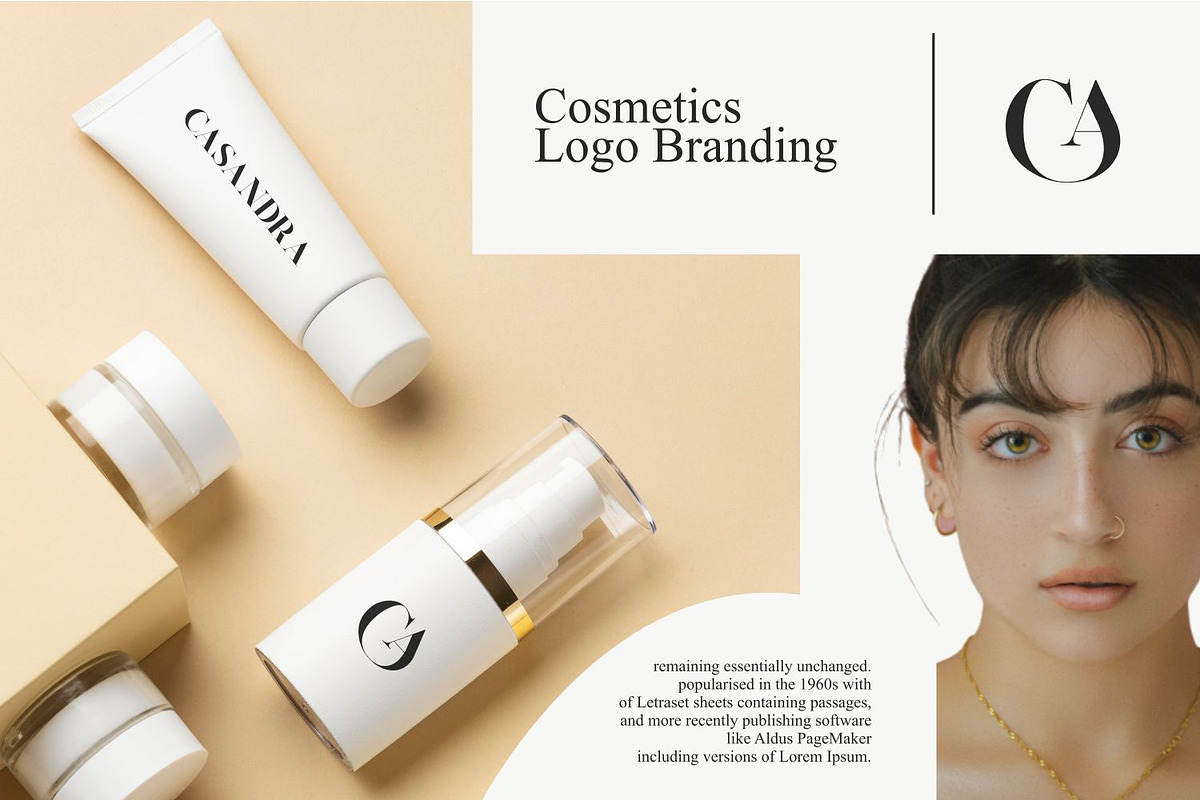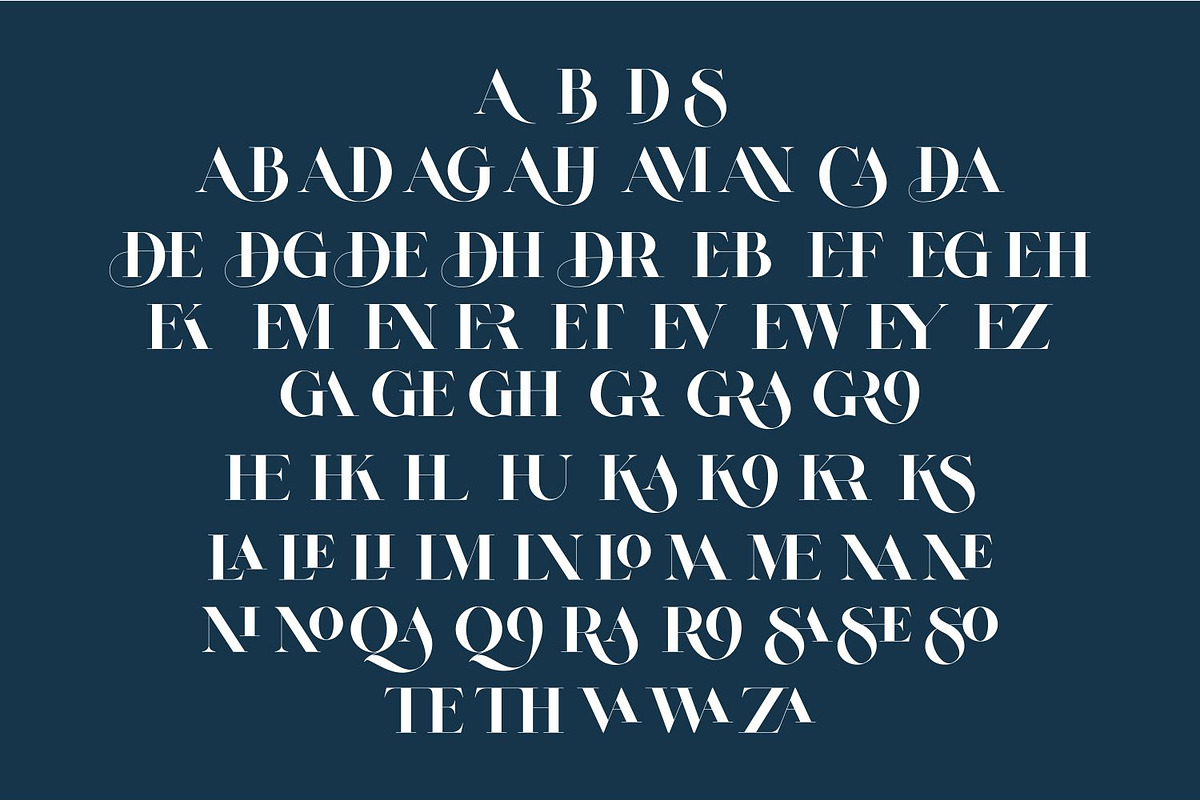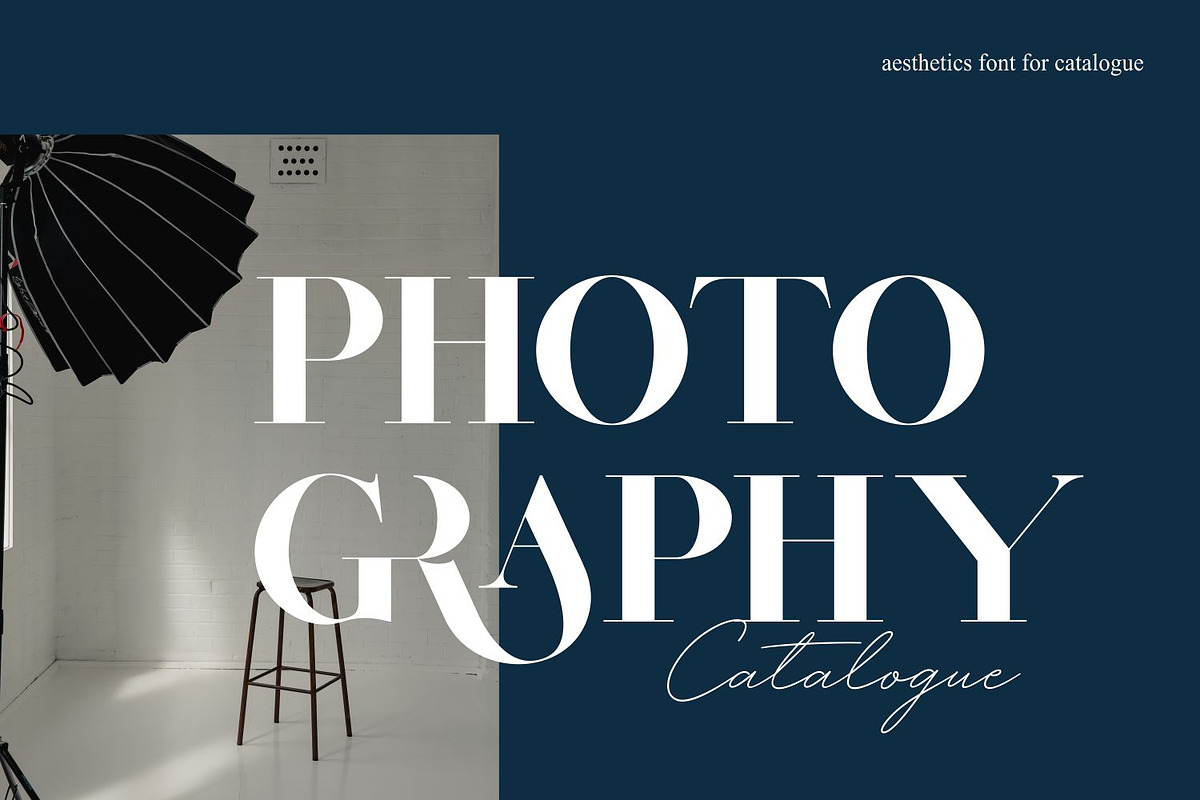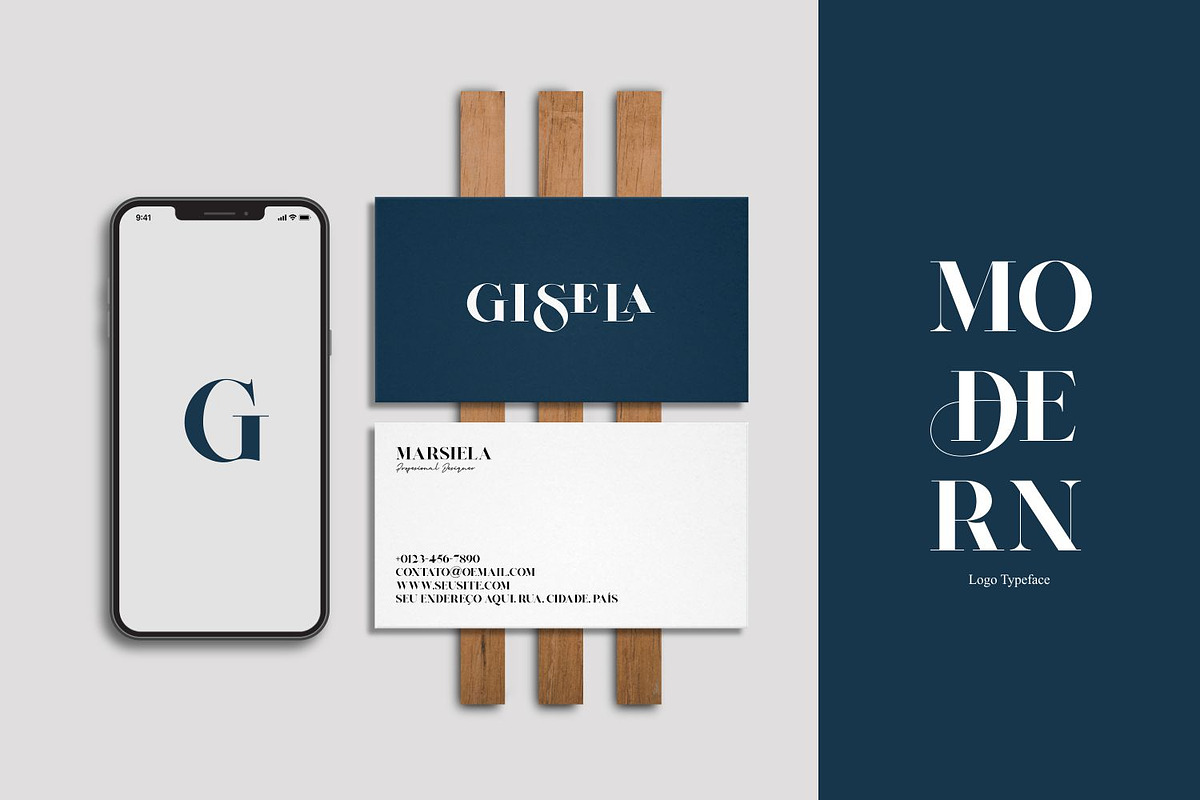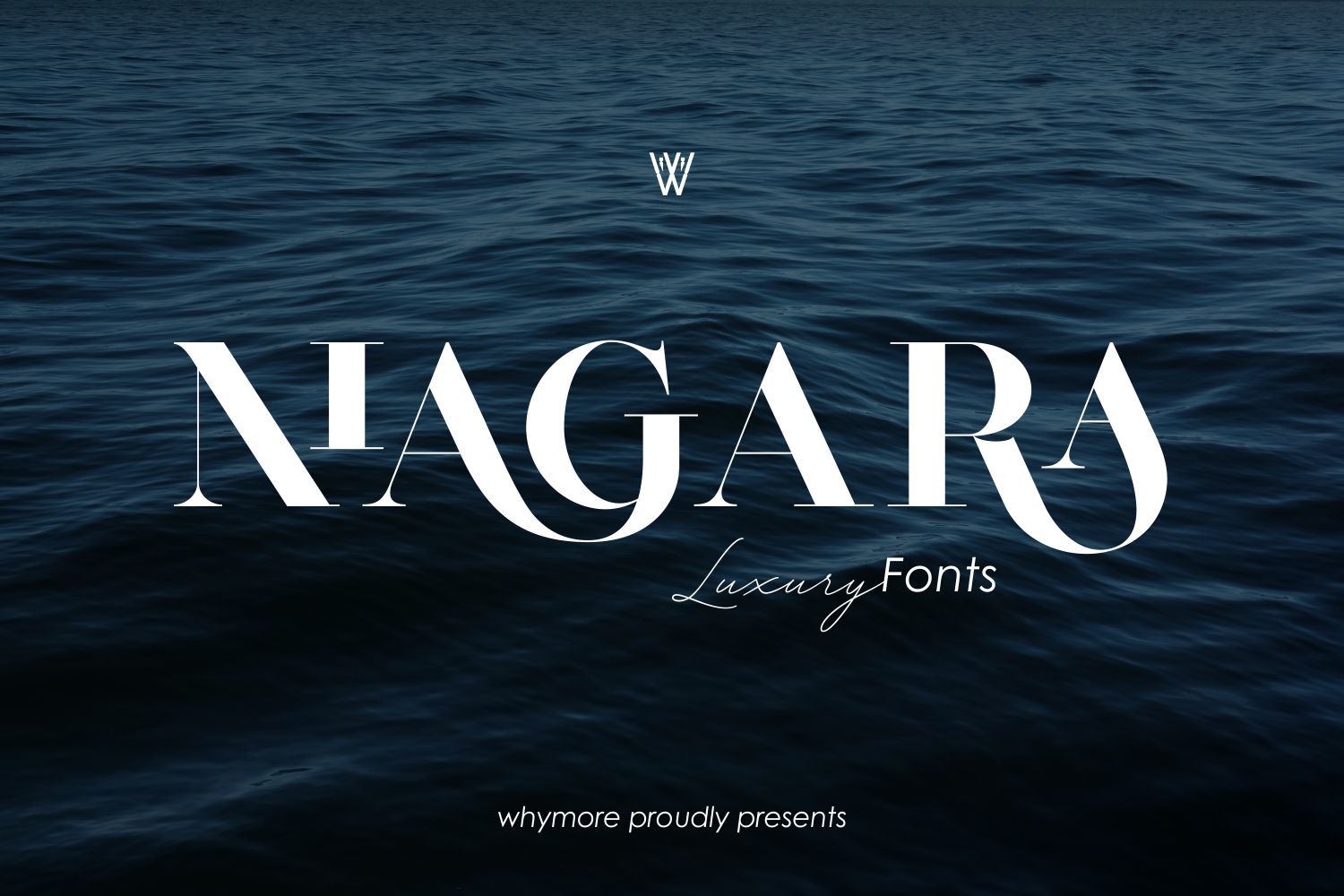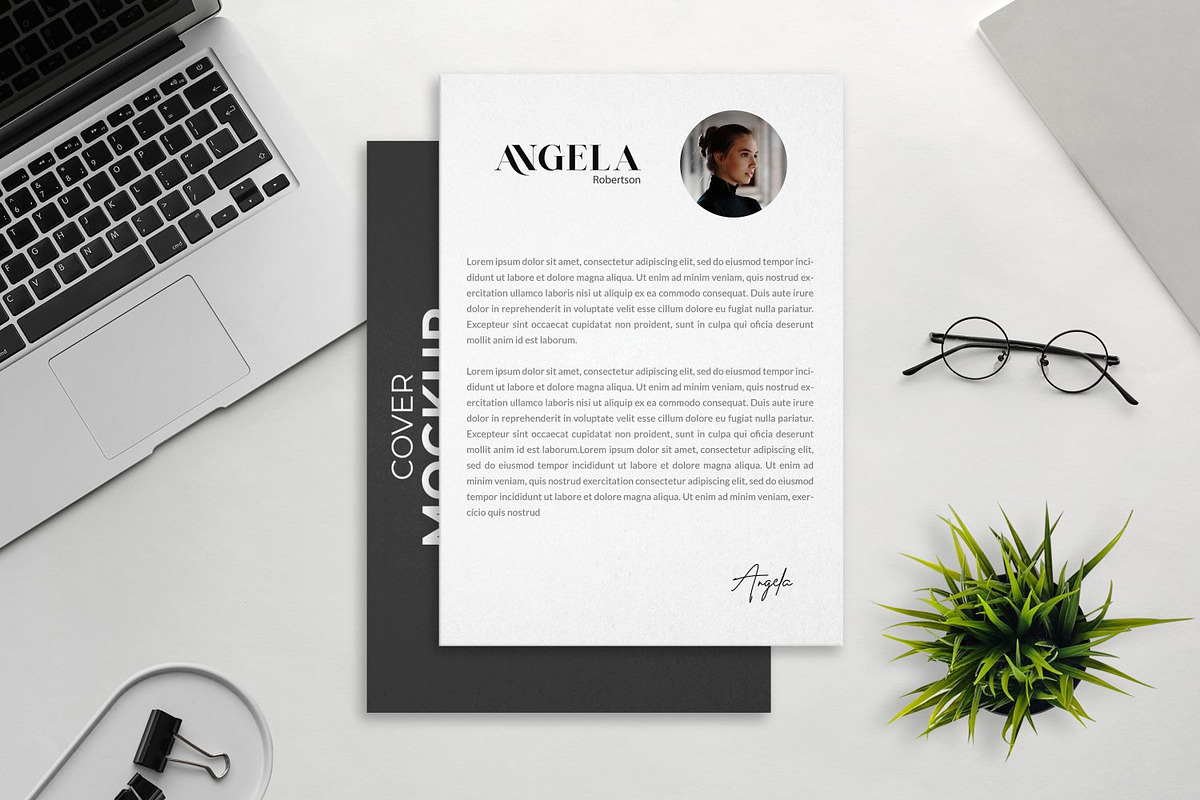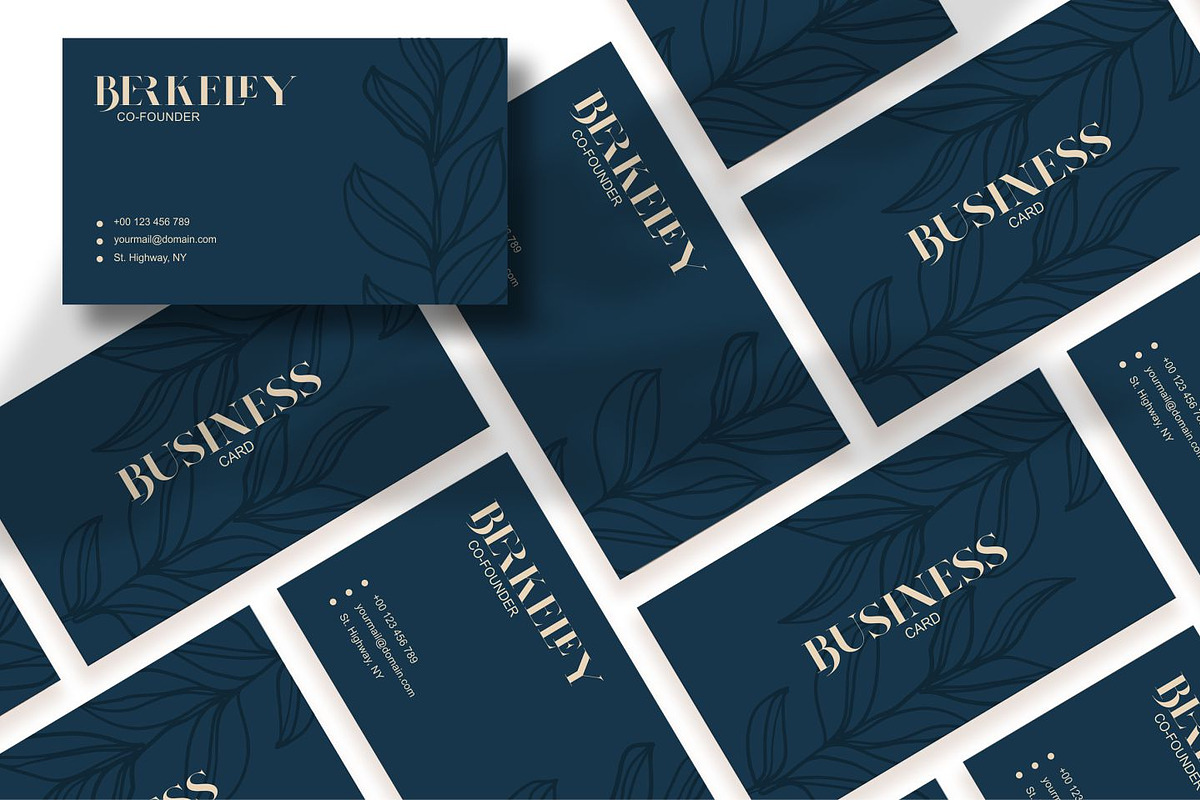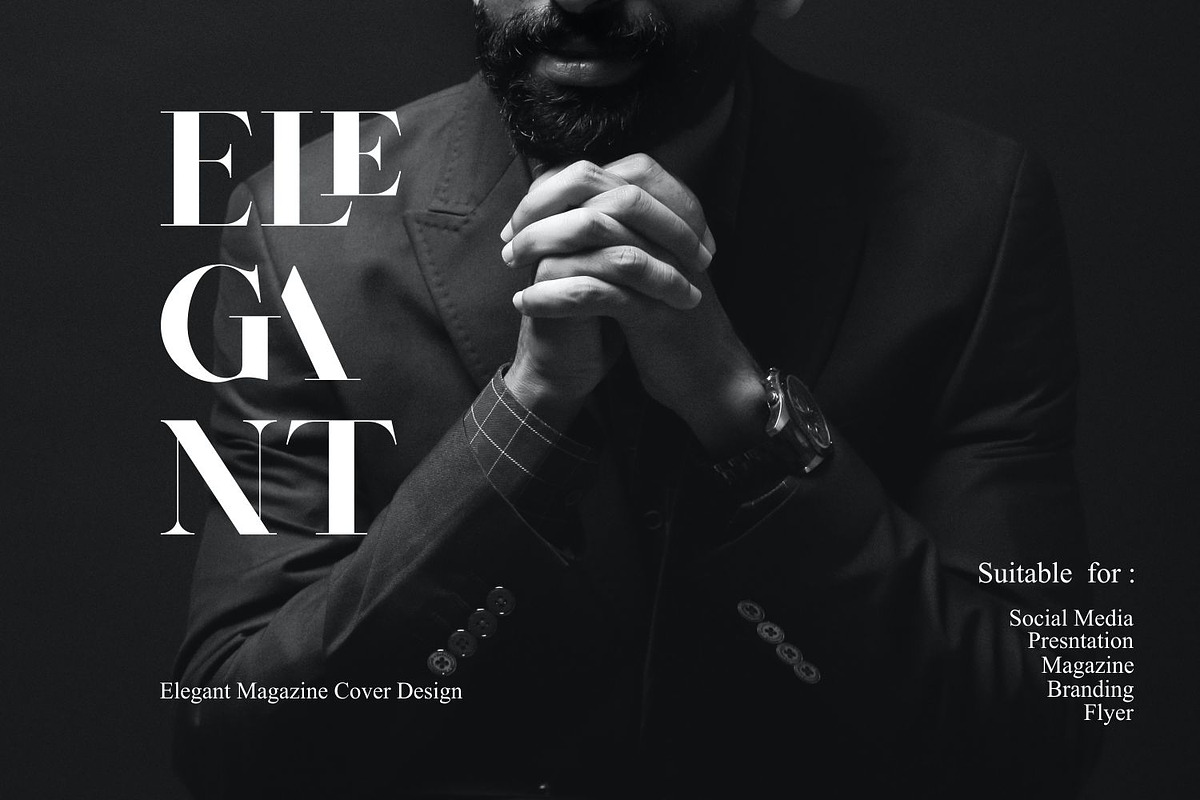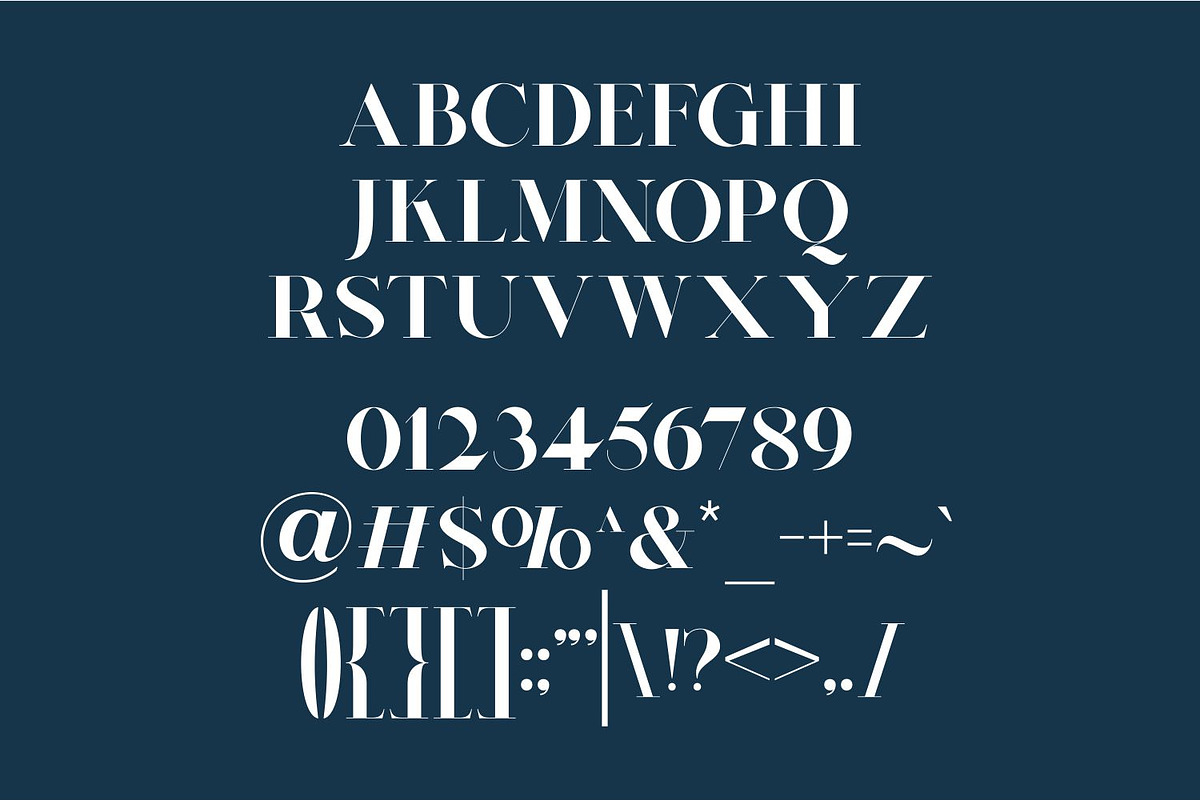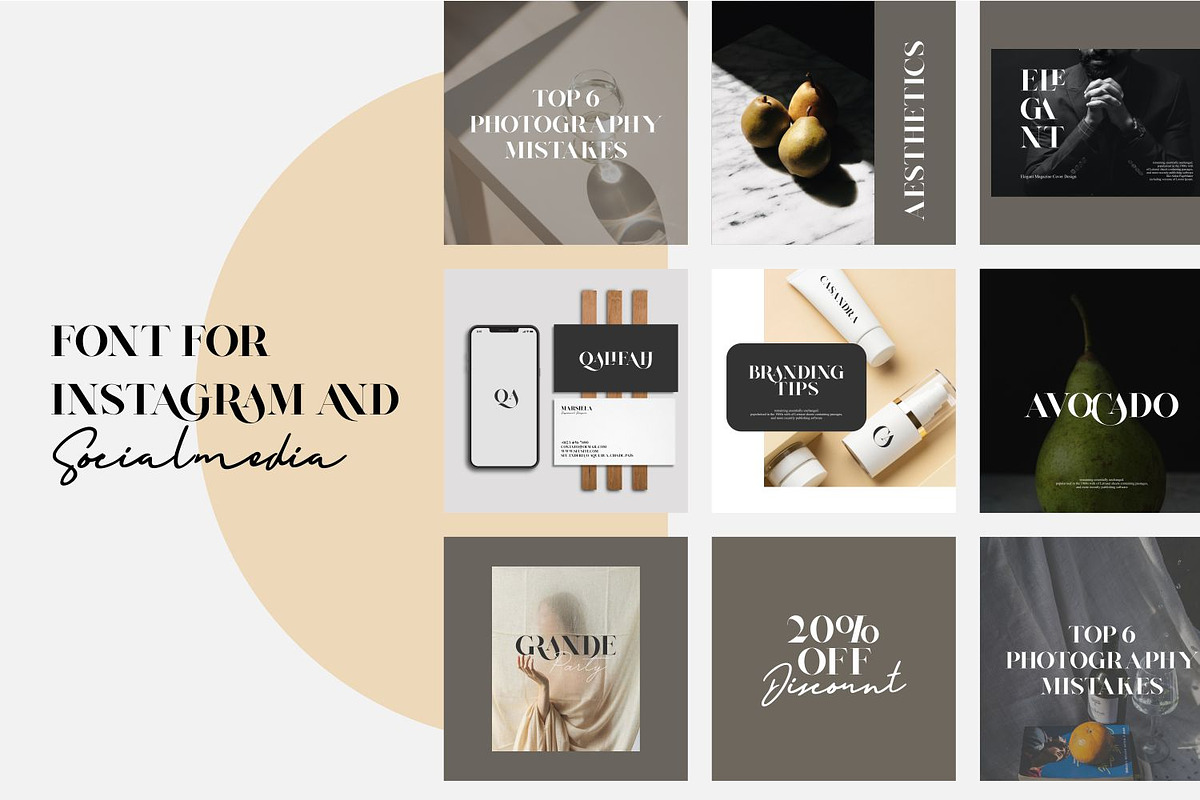
Niagara Font | Beautifull Serif Font
The Niagara Font is a breathtaking serif typeface that exudes timeless beauty and elegance in every stroke. With its graceful curves and refined details, this font adds a touch of sophistication to any design project. Whether you’re crafting wedding invitations, branding materials, or editorial layouts, the Niagara Font brings a sense of refined charm that captivates the viewer. Its versatile nature makes it suitable for both digital and print applications, ensuring your designs stand out with a touch of classical beauty.